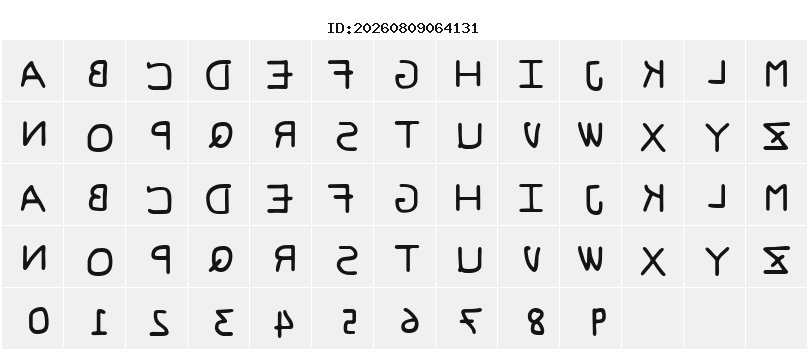
Pf_vvbf6s Preview
• Font Name: Pf_vvbf6s
• Font Style: erybadfont6s
• Font ID: SDP1:Pf_veryverybadfont6
• Full Font Name: Pf_veryverybadfont6s
• PostScript Name: Pf_veryverybadfont6s
About Pf_vvbf6s.ttf
Pf_vvbf6s.ttf is a modern, elegant sans-serif font designed for ultimate readability and visual harmony. Perfect for branding, headlines, web design, and print materials.